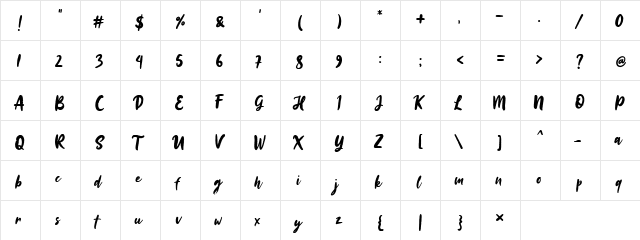
Sinestta Regular
| Designer | Weape Studio |
Design Context for Sinestta Typeface
Sinestta is a composed and adaptable typeface that performs quietly and consistently across a wide range of design contexts.